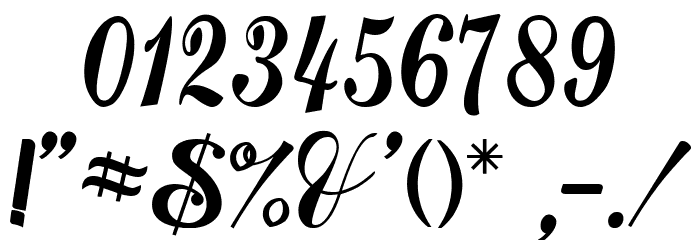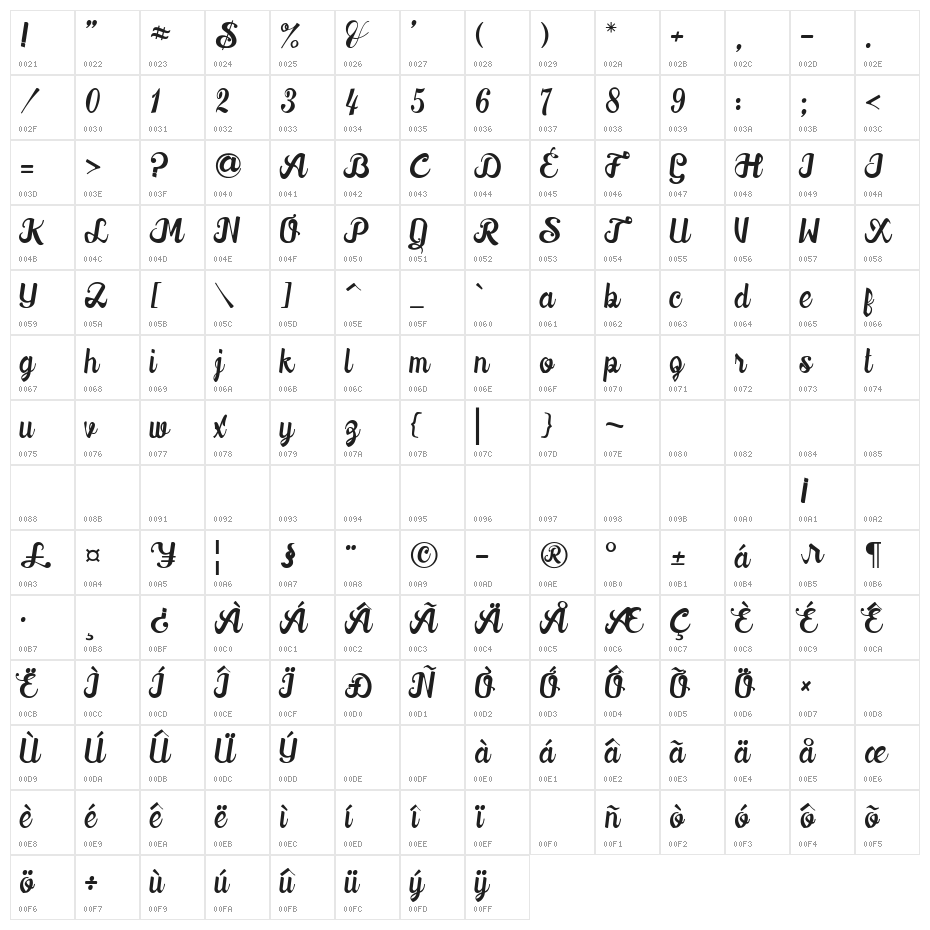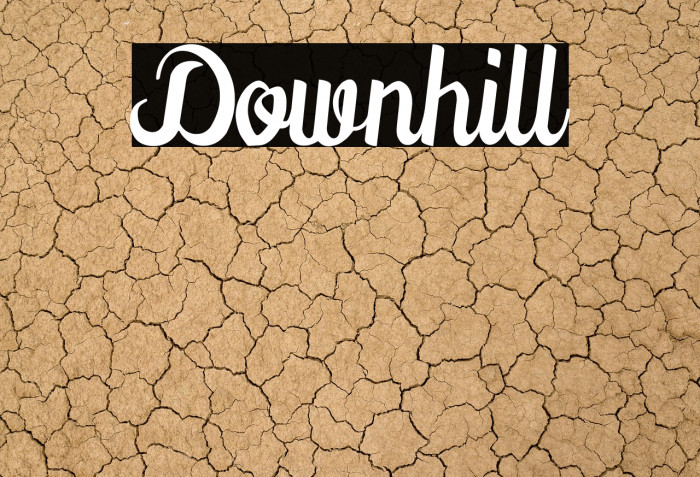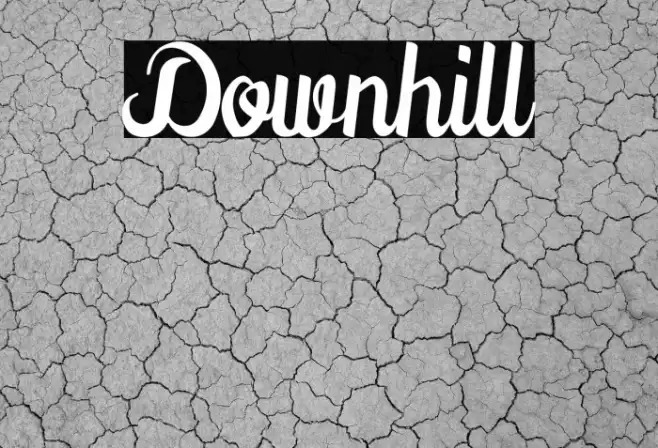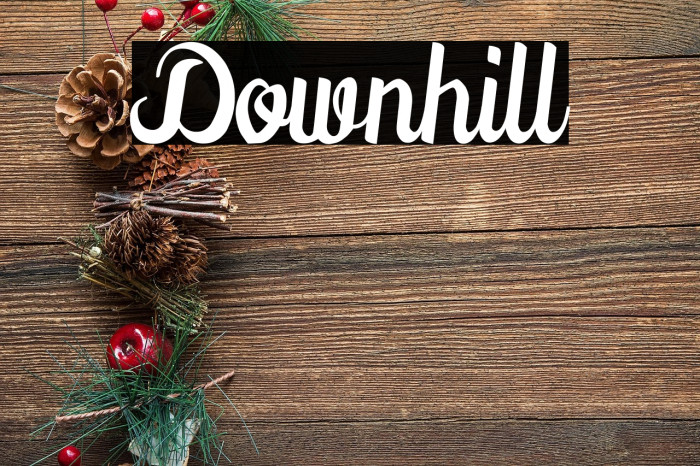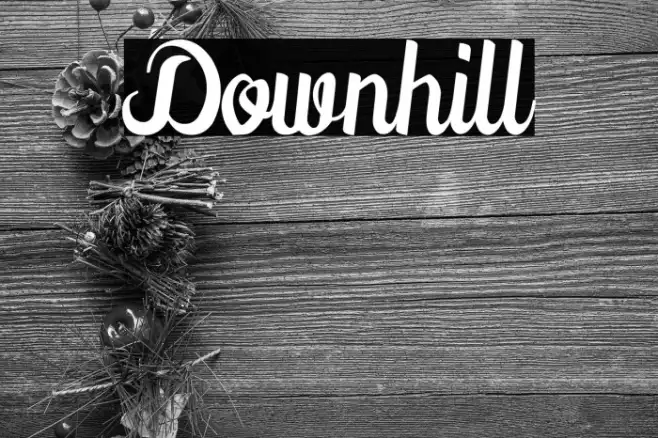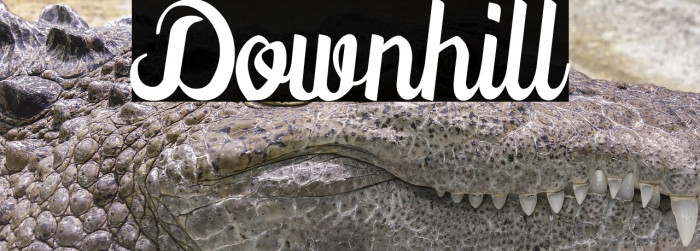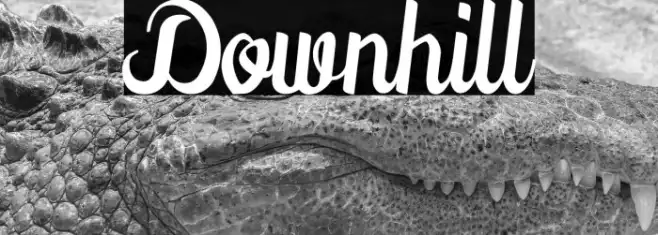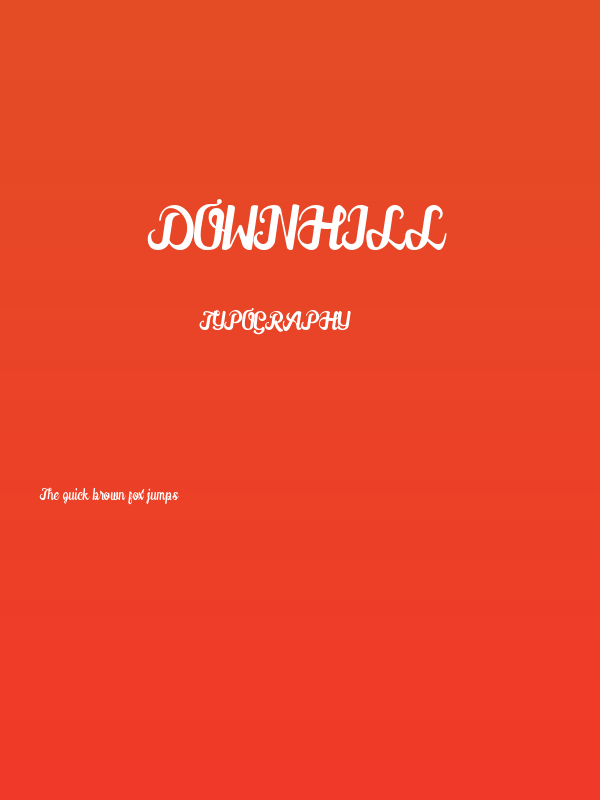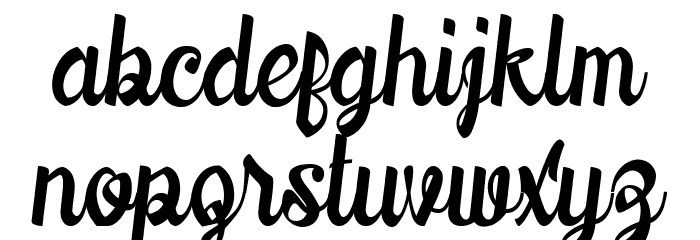
Downhill Font
Downhill Description
This font features a bold, cursive style with a playful and dynamic flow. The letters are interconnected, creating a sense of movement and energy. The uppercase characters are slightly more ornate, with exaggerated loops and swirls, while the lowercase letters maintain a consistent rhythm. The numbers and special characters follow the same stylistic approach, ensuring uniformity across all glyphs. The overall appearance is both elegant and lively, making it suitable for projects that require a touch of sophistication and flair.
Use CaseLogos, Headlines, Invitations
Proposed ProjectsIdeal for branding, invitations, greeting cards, and creative headlines.